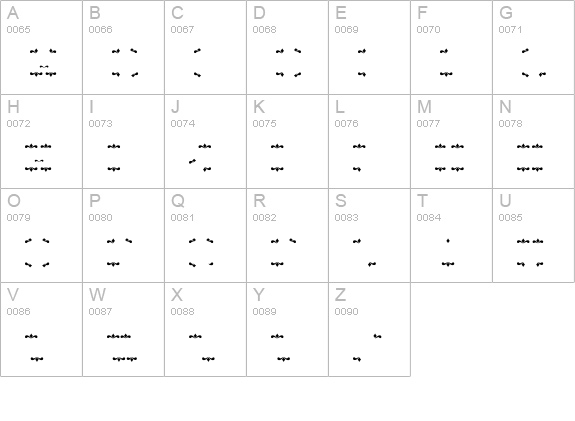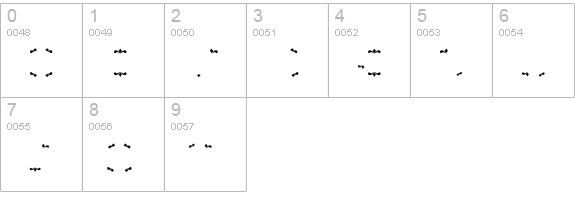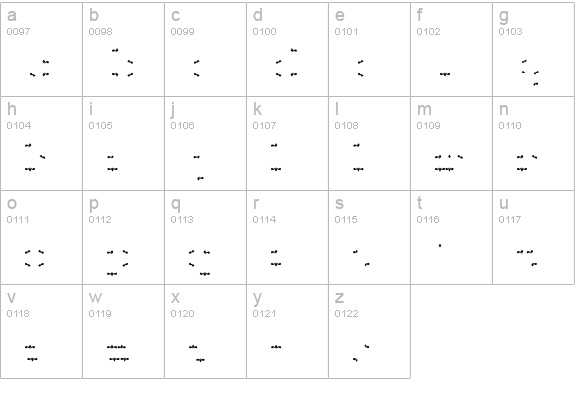
Rio Mesa Fill Serifs is a stunning and elegant serif font that exudes sophistication and class. With its sleek lines and timeless design, this font is perfect for adding a touch of luxury to your projects. The unique fill style of the letters adds depth and dimension, making them stand out beautifully on any medium. This font is not only visually appealing but also versatile, suitable for a wide range of design applications including branding, editorial design, packaging, and more. Whether you're creating a logo for a high-end brand or designing a stylish magazine spread, Rio Mesa Fill Serifs will elevate your work to the next level. The best part? Rio Mesa Fill Serifs is completely free to download at FontsMarket.com. You can enhance your designs with this exquisite font without any cost, making it an excellent choice for designers on a budget. Don't miss out on this opportunity to elevate your projects with the luxurious Rio Mesa Fill Serifs font. Download it today and see the difference it can make in your designs!